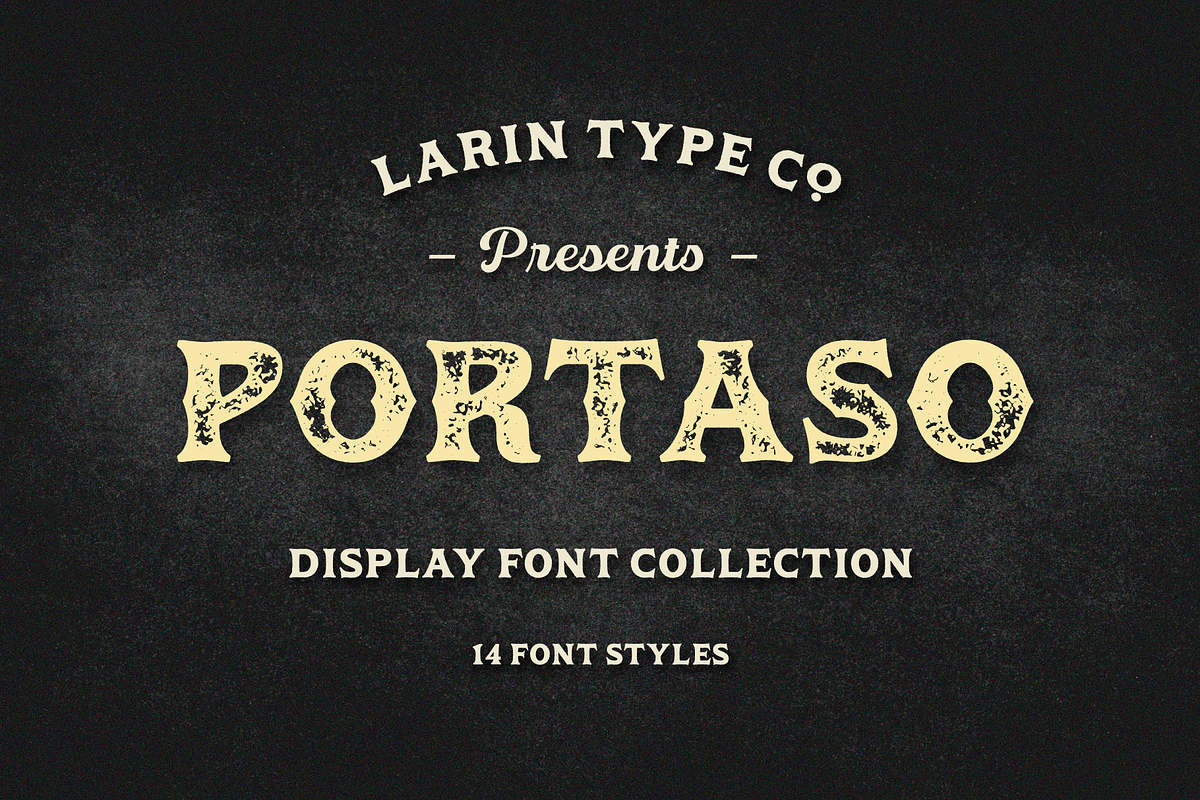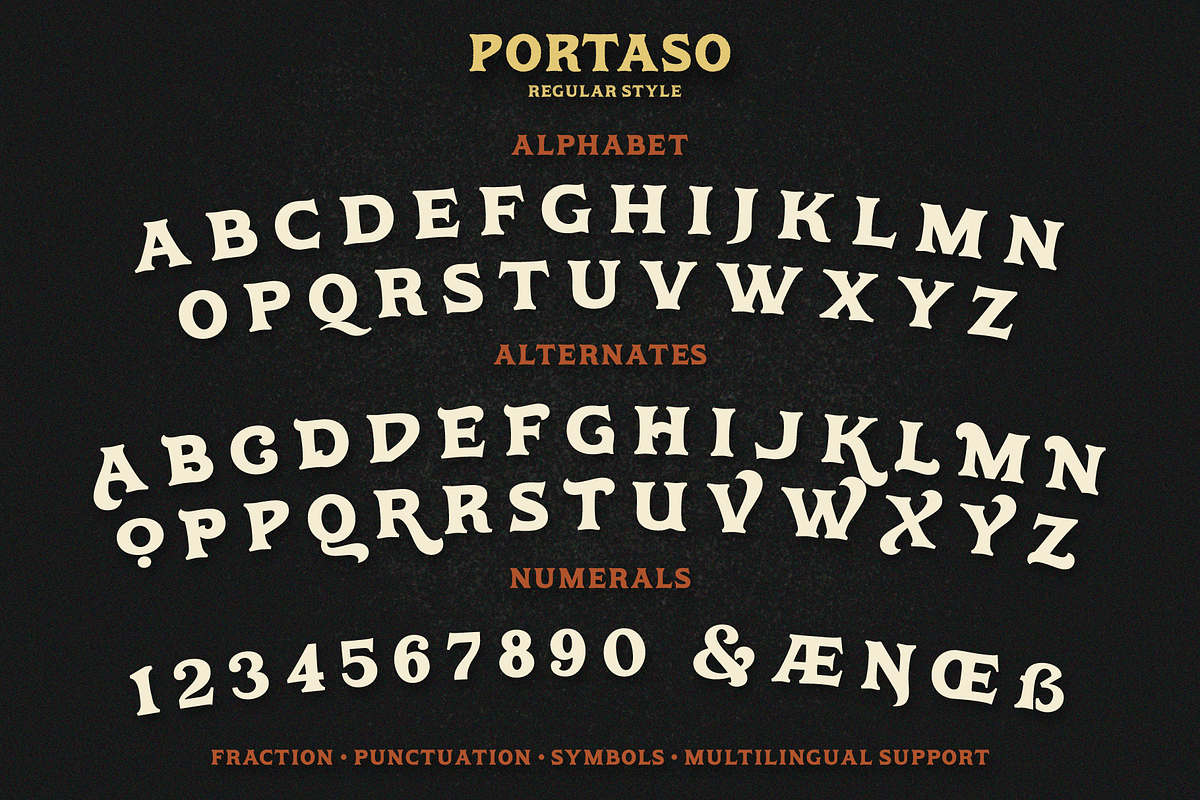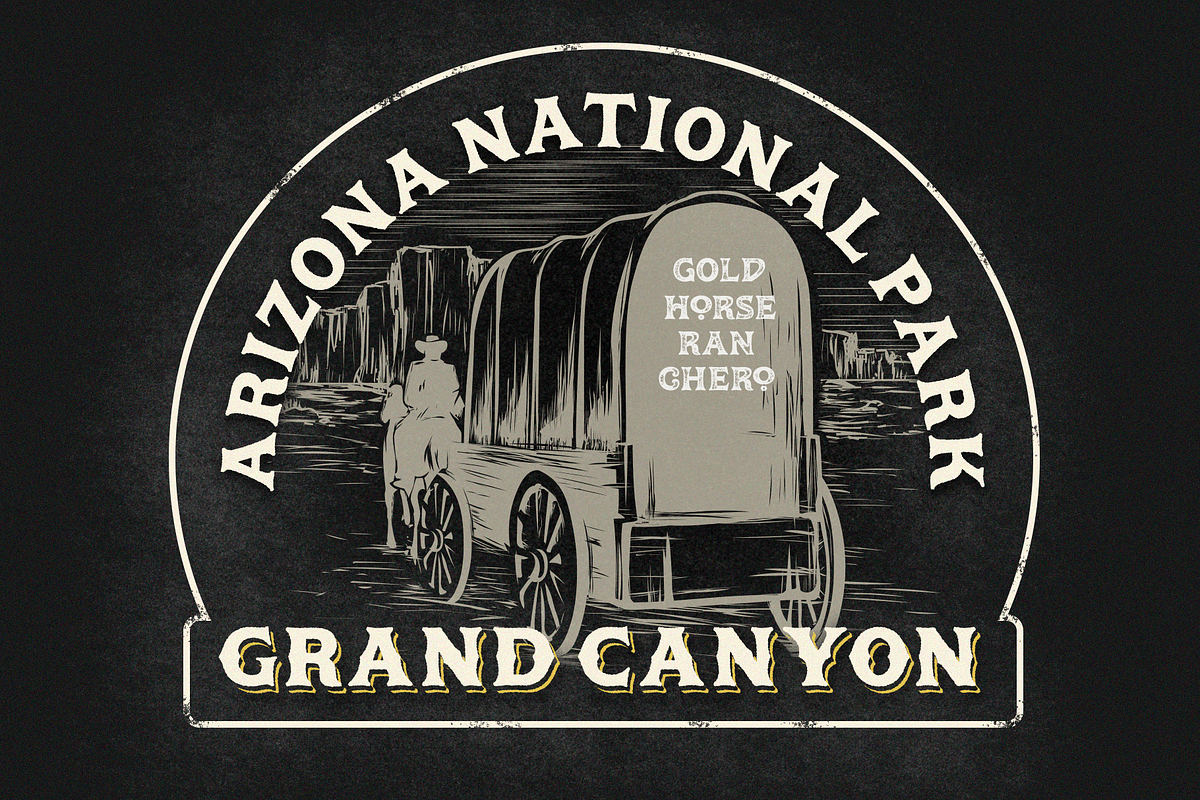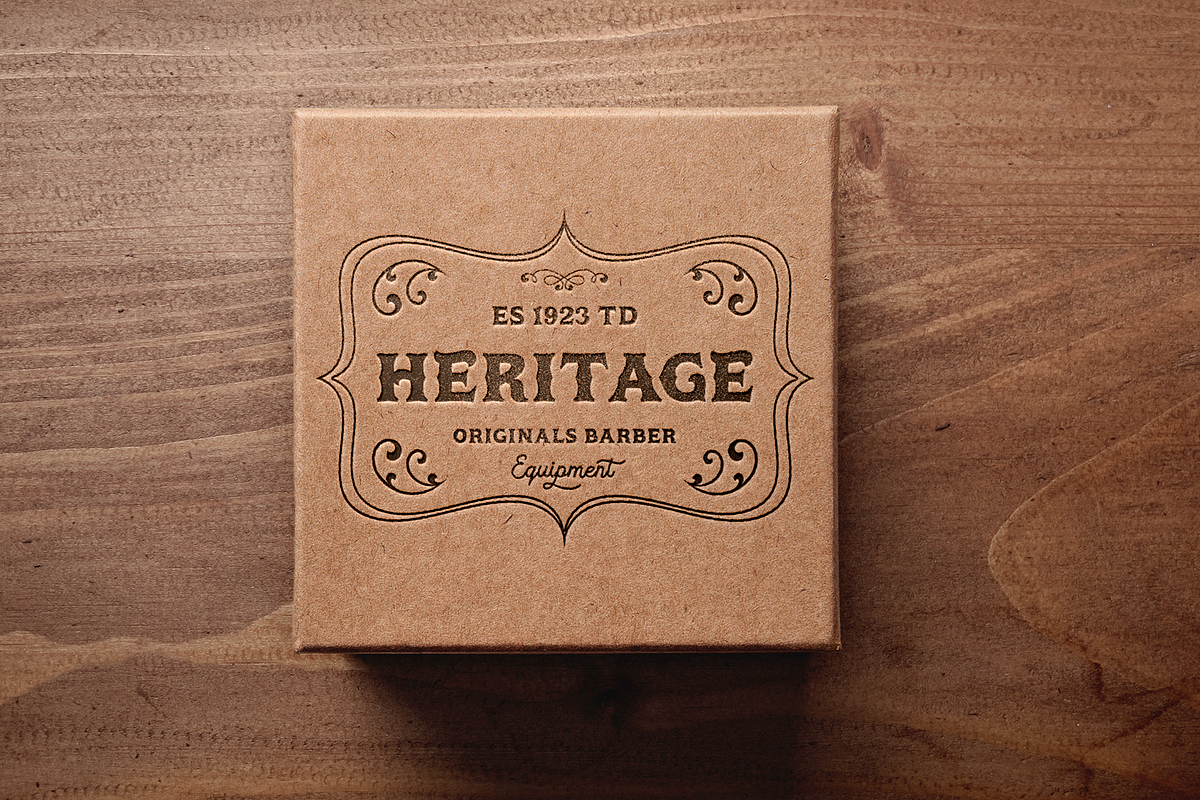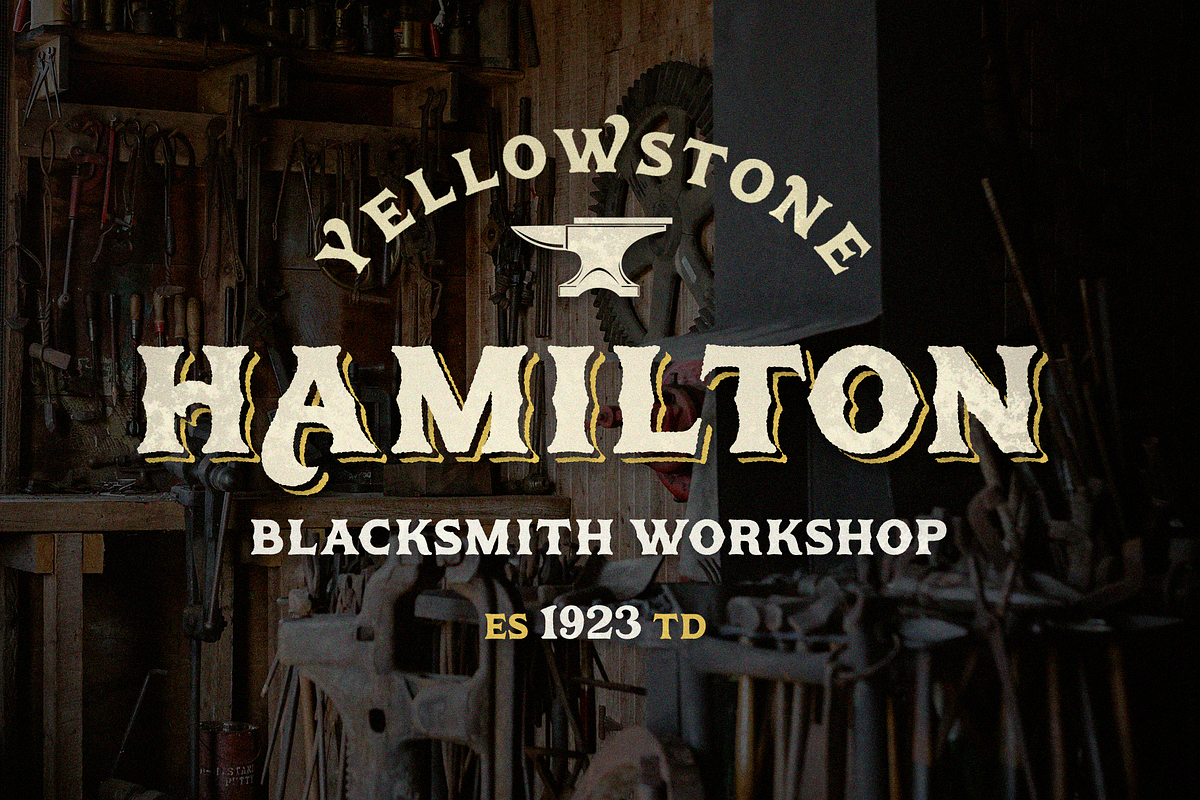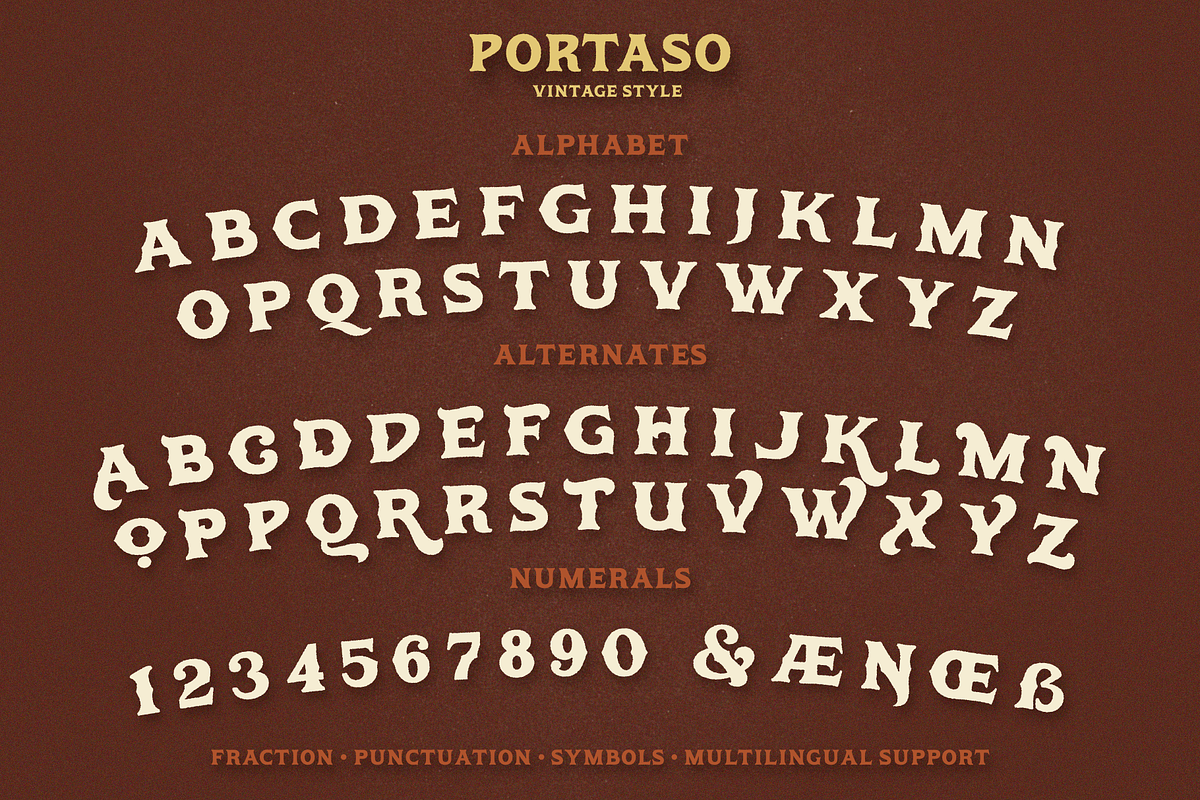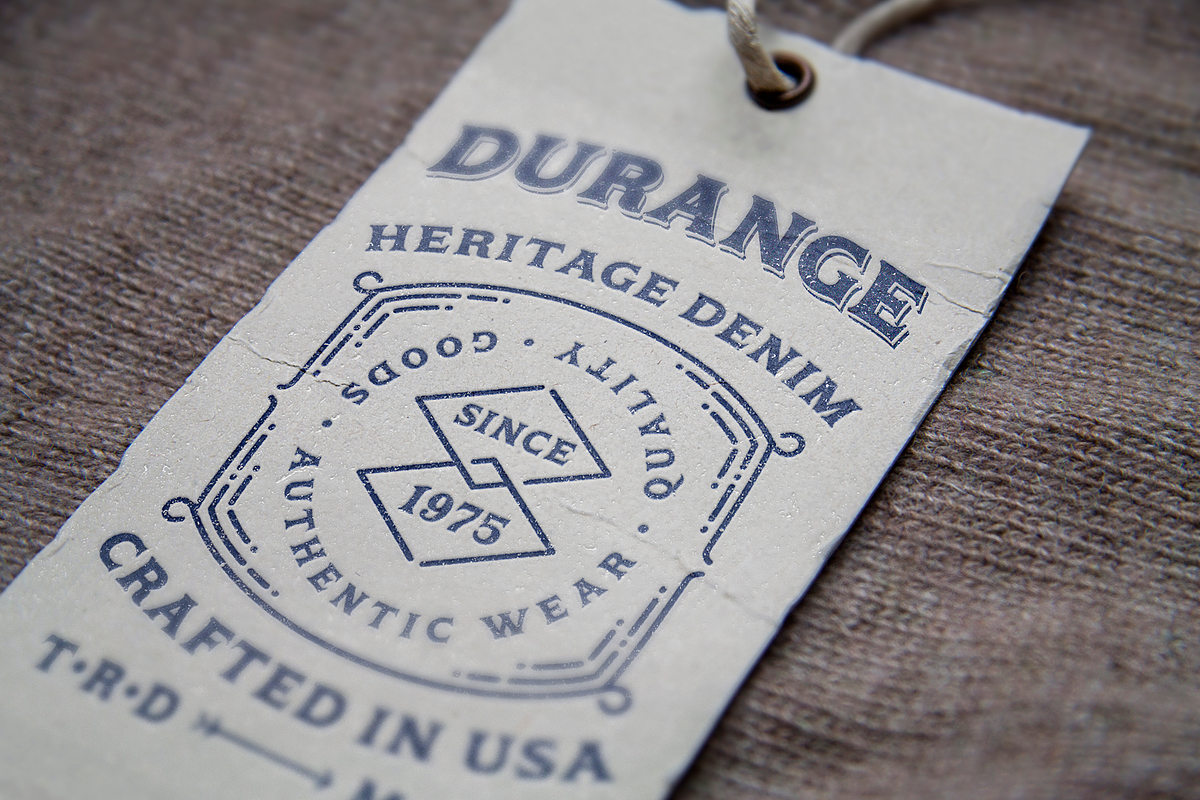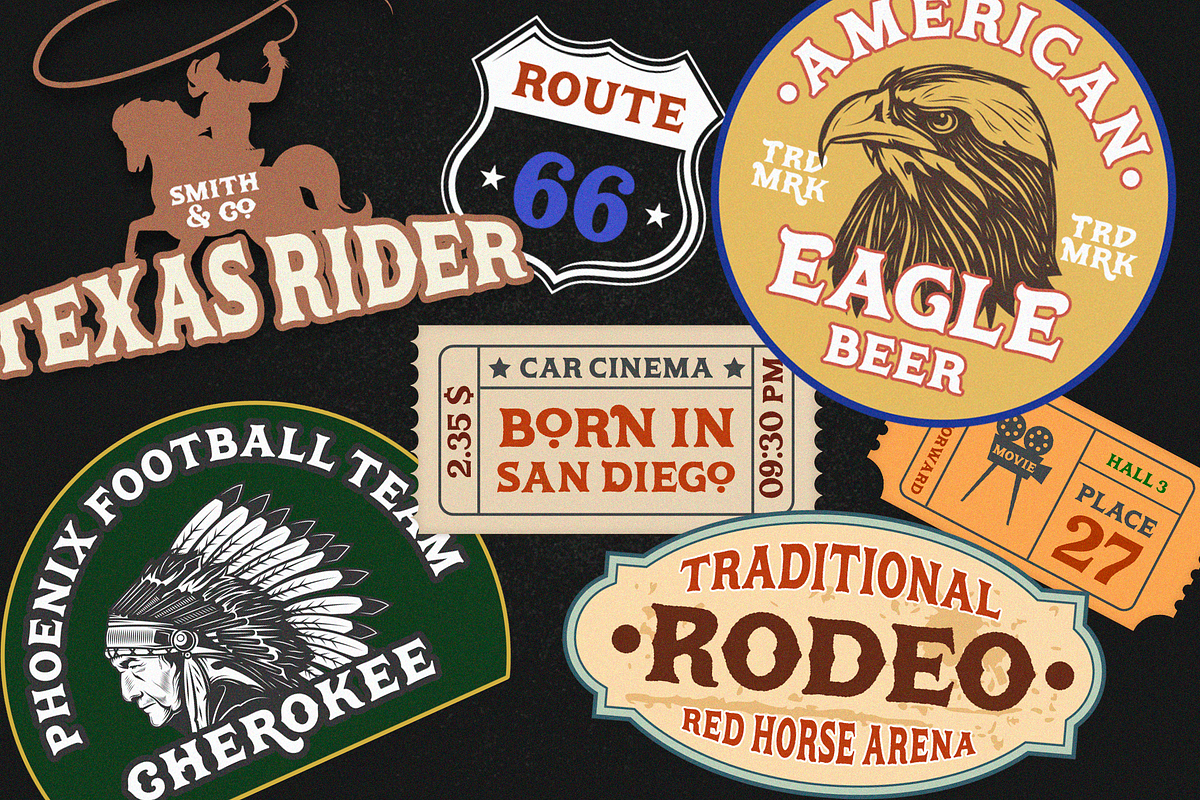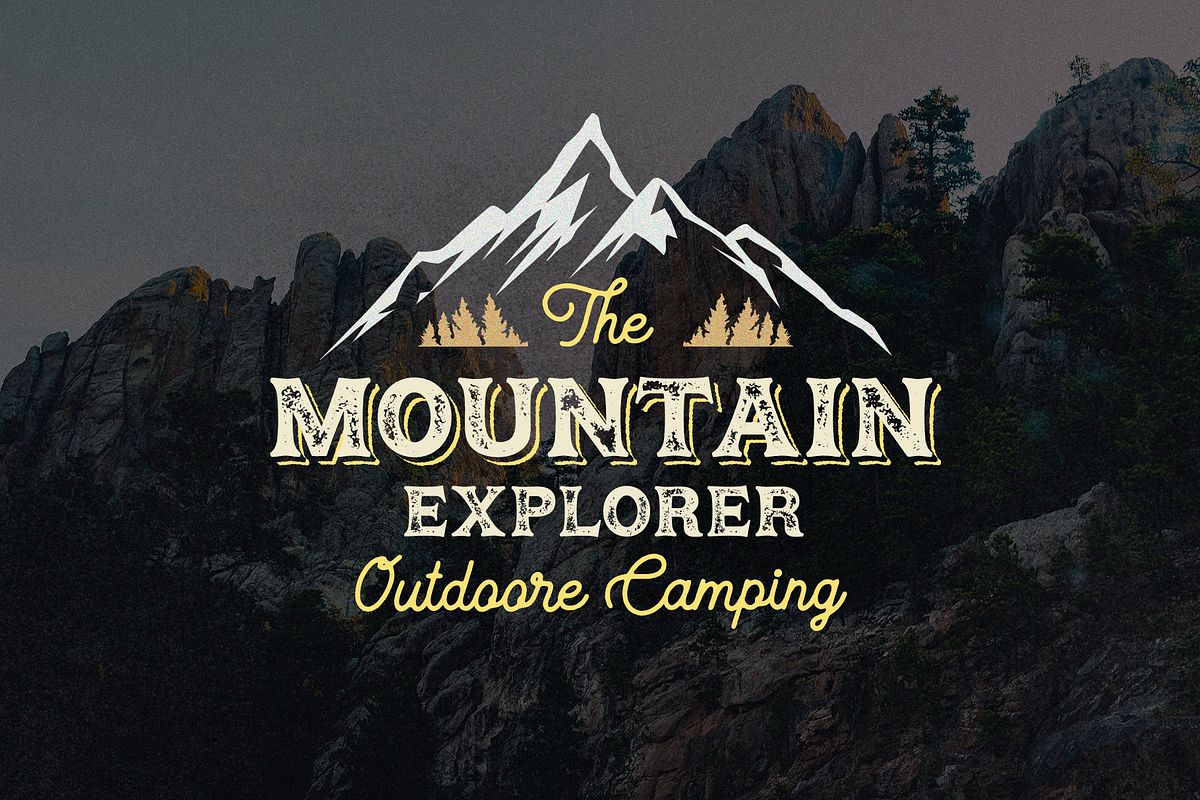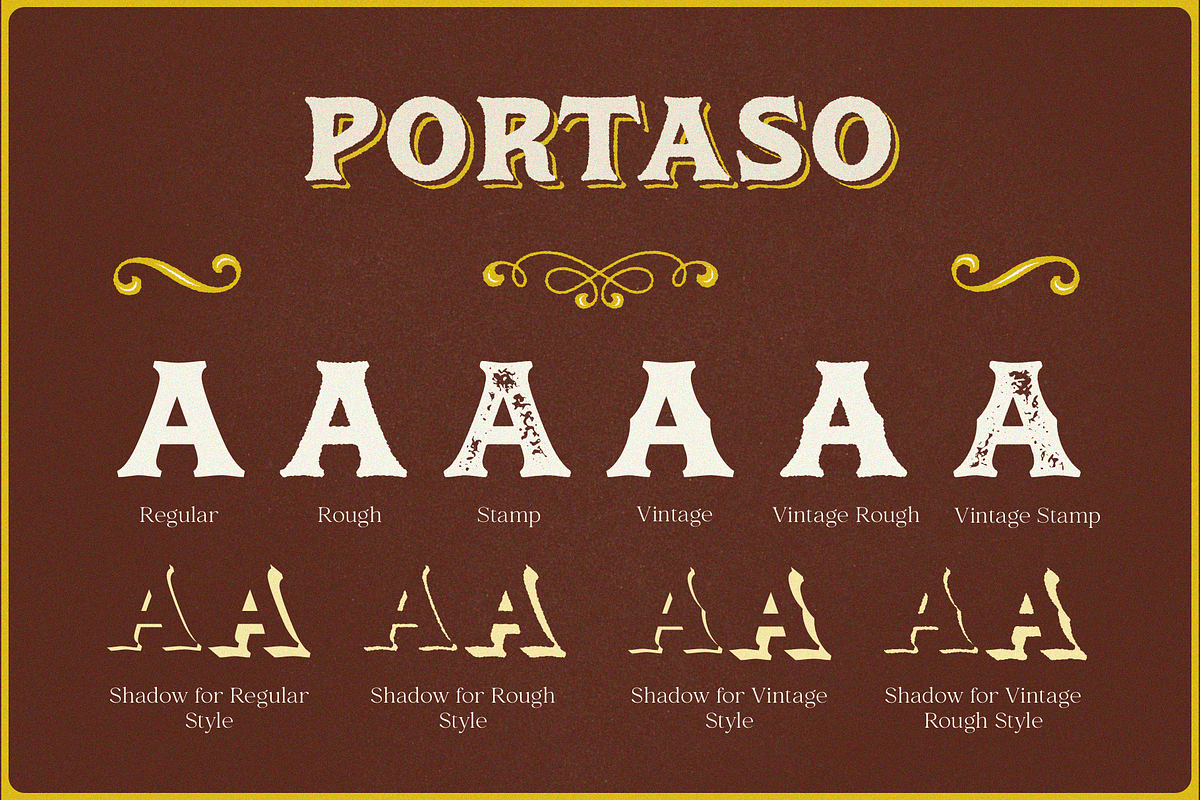
Portaso
PORTASO This is a vintage display font inspired by signage, logos in the style of the wild west of the old time. This is a great find for creating logos, various kinds of designs in vintage and wild West style.
Portaso font family has only Capital letters and alternates to them. Also the Stamp style has a different texture for upper and lowercase.
This collection includes 14 font styles: regular, rough, two shadows for regular style and two shadows for rough style and stamp style, also vintage, vintage rough, two shadows for vintage style and two shadows for vintage rough style and stamp style,
Following international symbols support: ÀÁÂÃÄÅĄÇĆÈÉÊËĘÌÍÎÏÐÑŃŁÒÓÔÕÖØÙÚÛÜŚŠŸÝŹŻŽßàáâãäåçèéêëìíîïðñòóôõöøùúûüýÿąćęłńśšźżž
Full Capital alphabet A-Z
Numbers, fractions
Punctuation and symbols